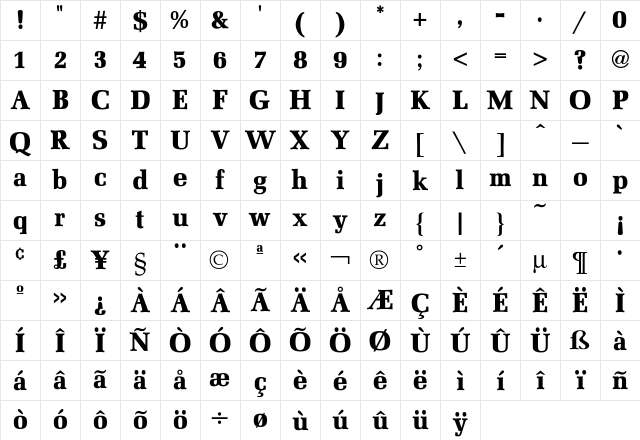
Mezzo Bold Free Font
Mezzo Bold
Mezzo Family
Mezzo Bold
Design Context for Mezzo
Mezzo is a composed and adaptable typeface that performs quietly and consistently across a wide range of design contexts. Its bold stroke weight gives it real presence on the page.